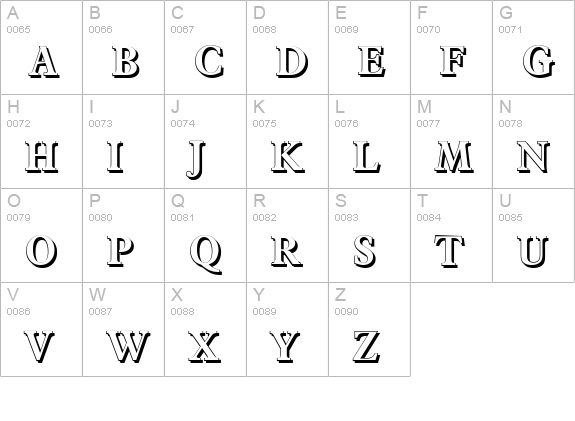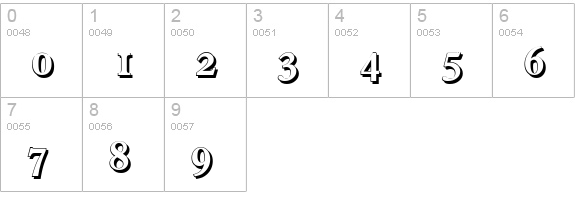
FranciscoShadow-Bold Font Details
FranciscoShadow-Bold is a strong, high-contrast variant in the FranciscoShadow typeface family \xE2\x80\x94 well suited to headlines, attention-grabbing titles, and strong calls-to-action.
FranciscoShadow-Bold is a bold and impactful font that exudes a sense of confidence and modernity. Its strong, shadowed characters make a bold statement, perfect for headlines, logos, and branding projects. This versatile font strikes the perfect balance between being eye-catching and highly readable, making it a great choice for a wide range of design applications. Best of all, FranciscoShadow-Bold is available for free download at FontsMarket.com. This means you can easily access this stylish and professional font for your creative projects without any cost. Whether you're a designer, marketer, or content creator, FranciscoShadow-Bold is sure to elevate your work and leave a lasting impression. Download it today and unleash the power of this striking typeface in your designs.